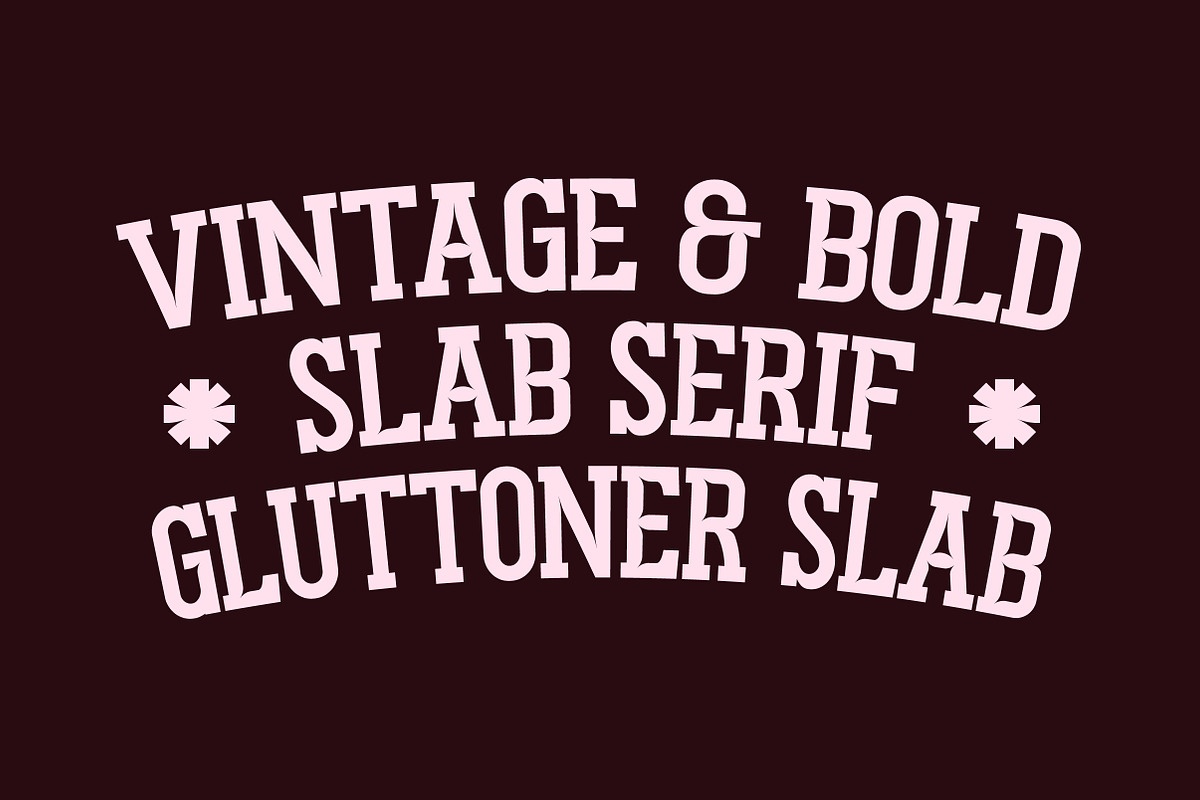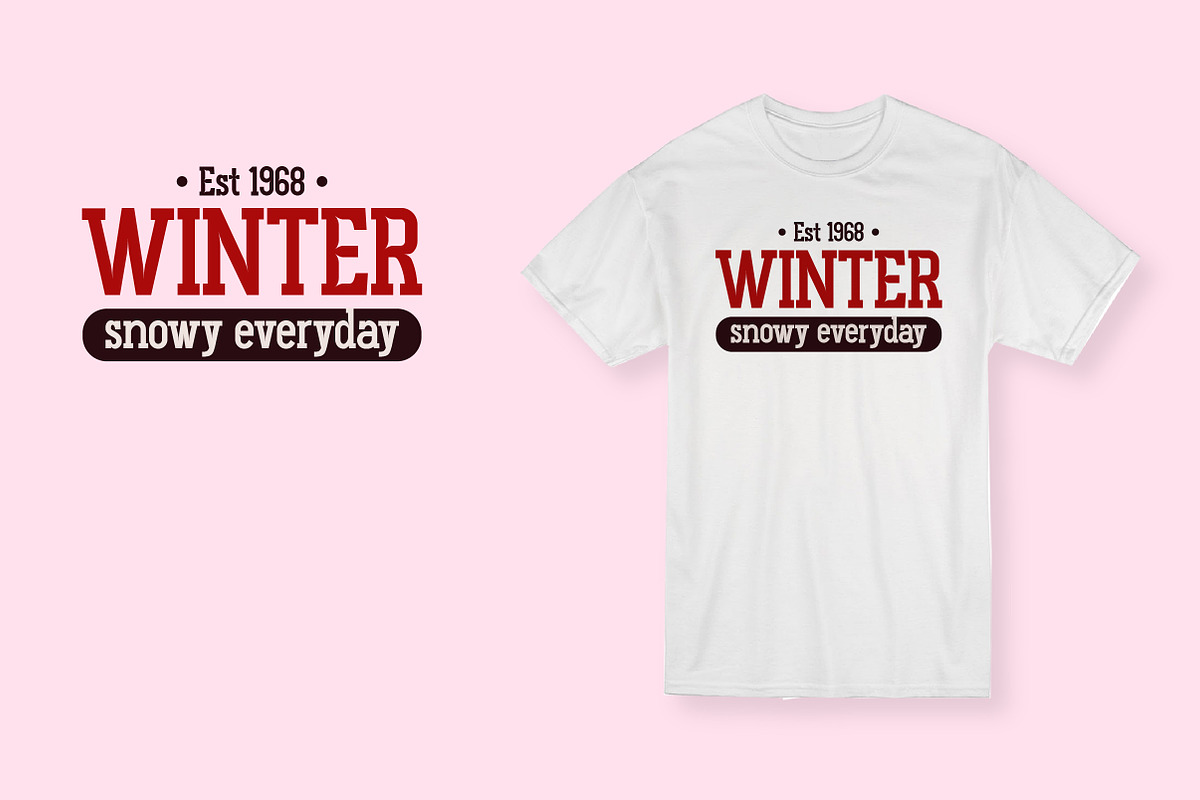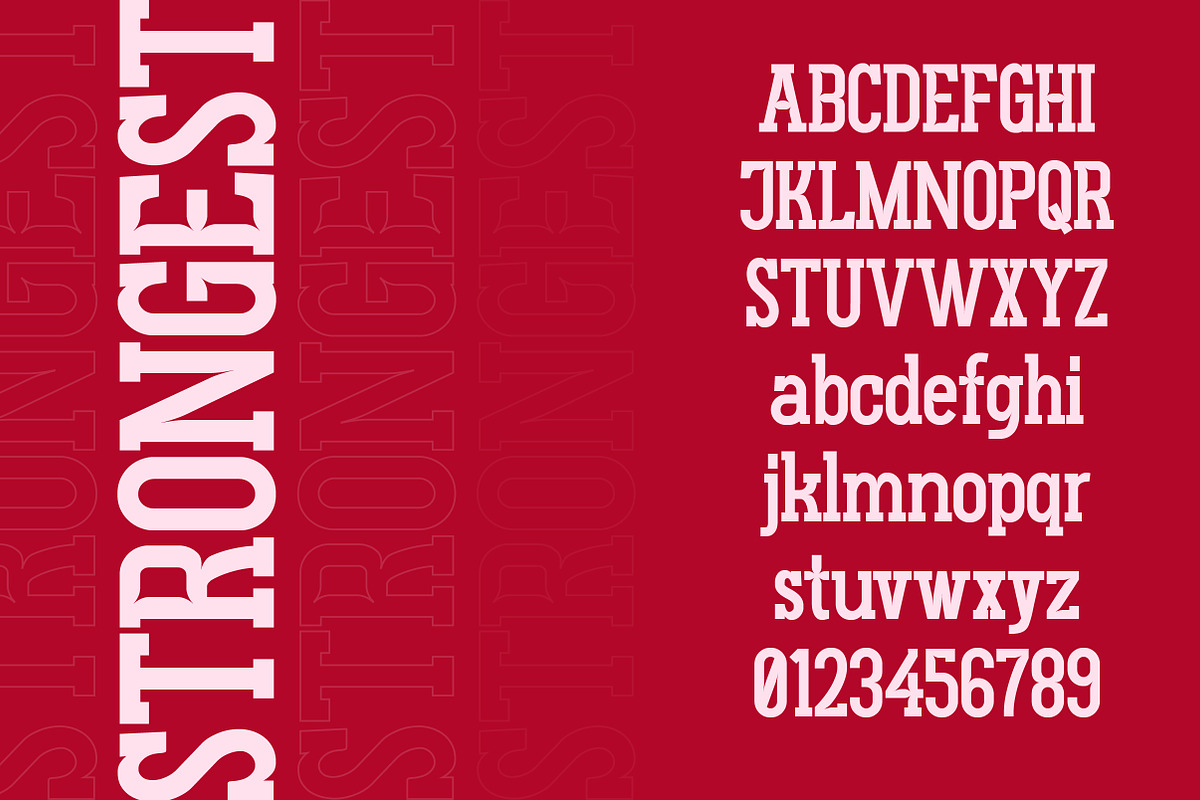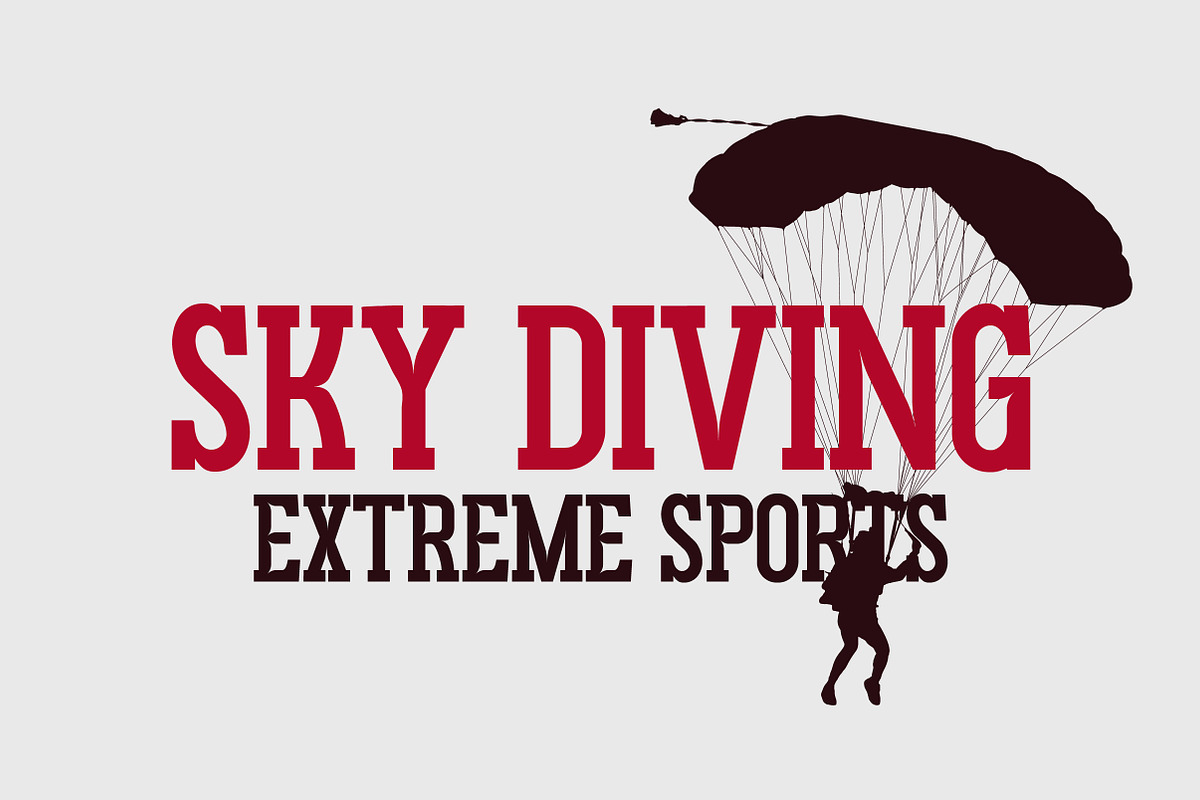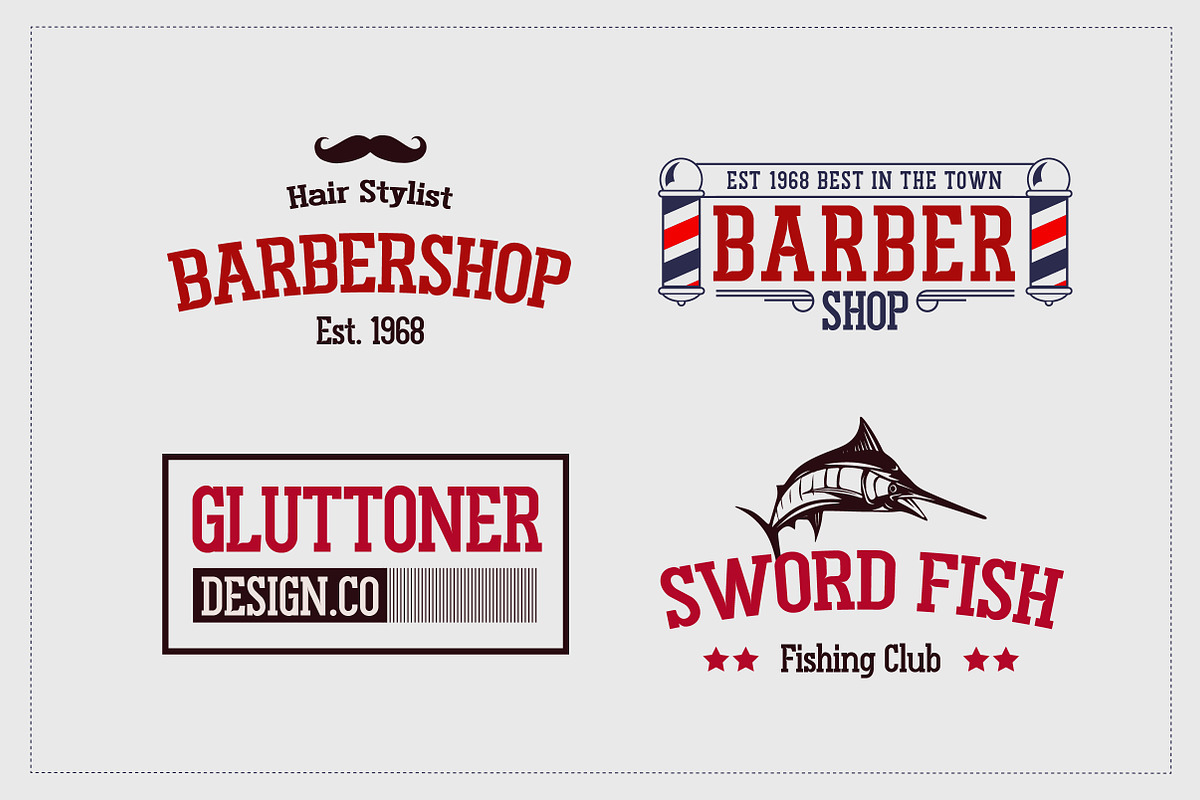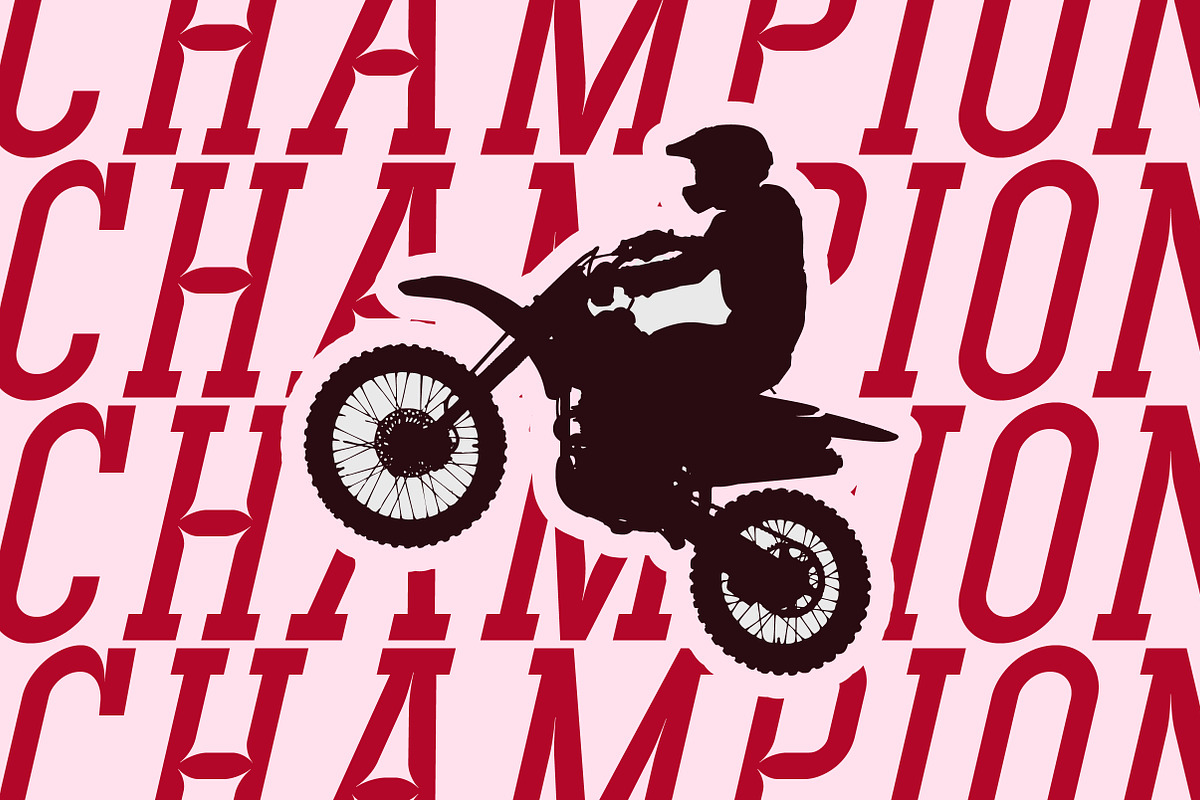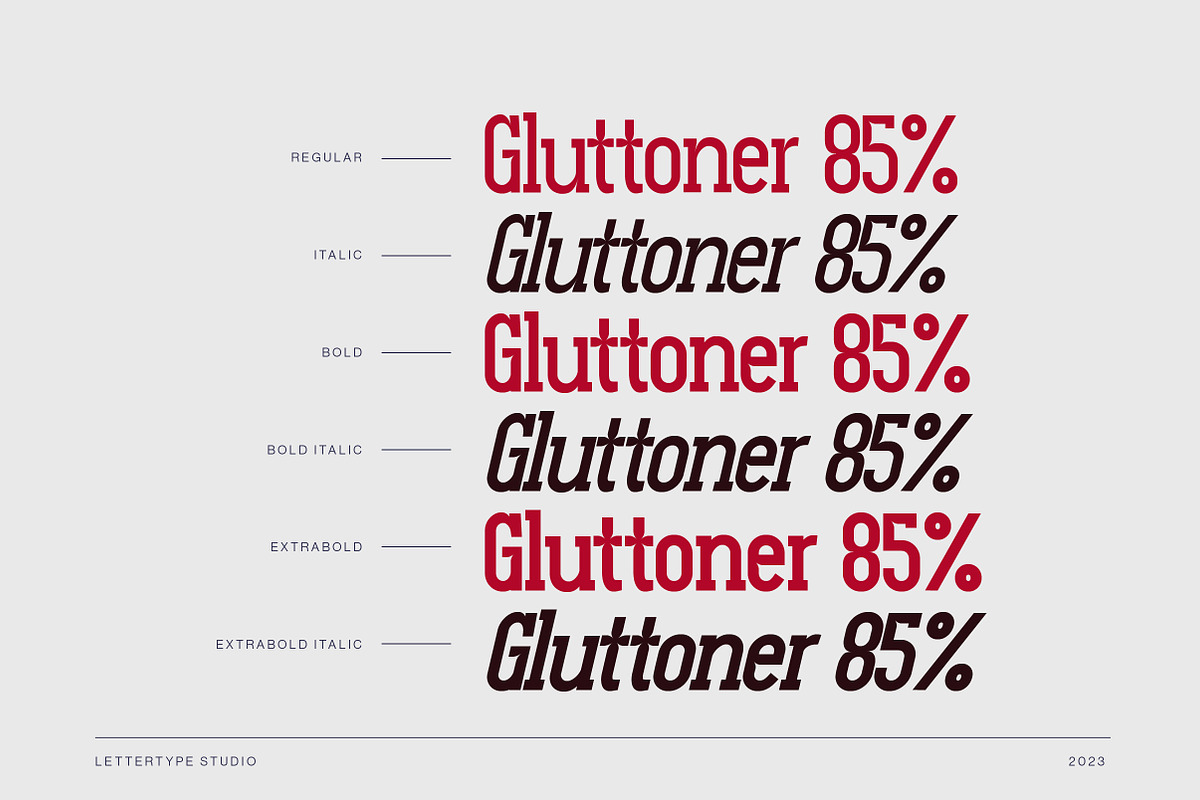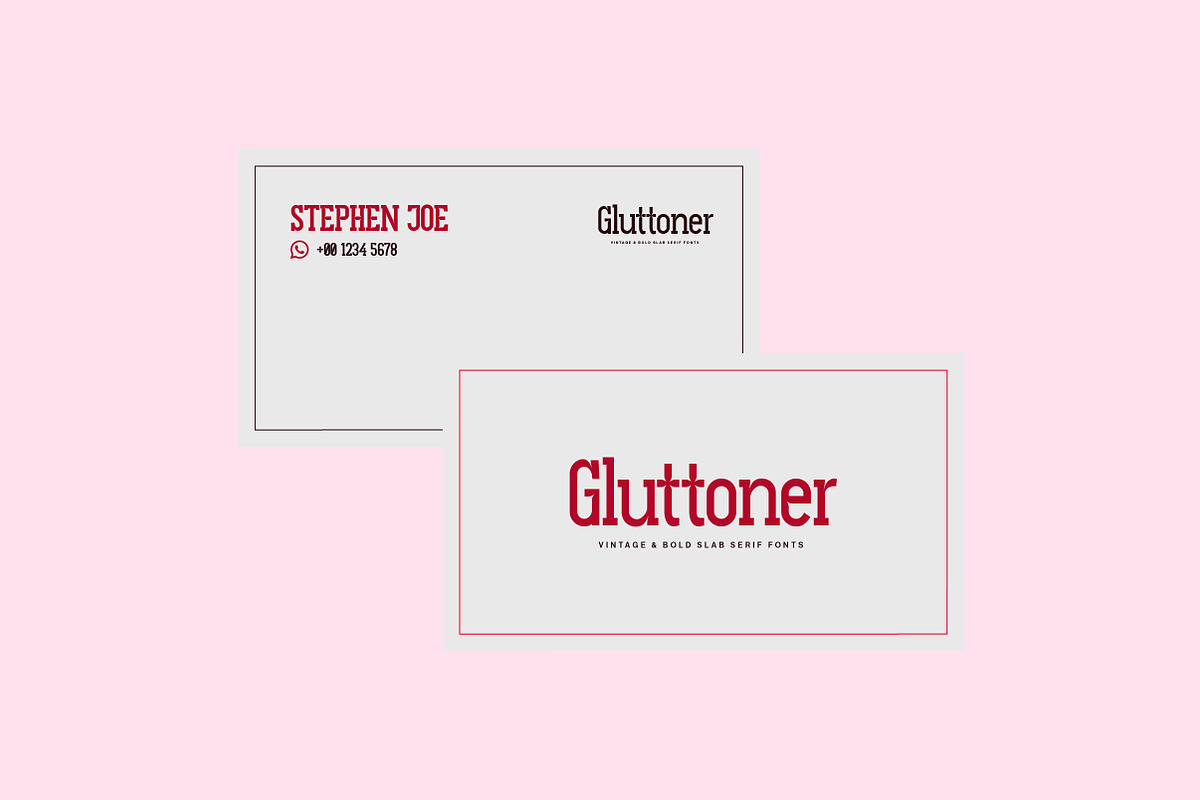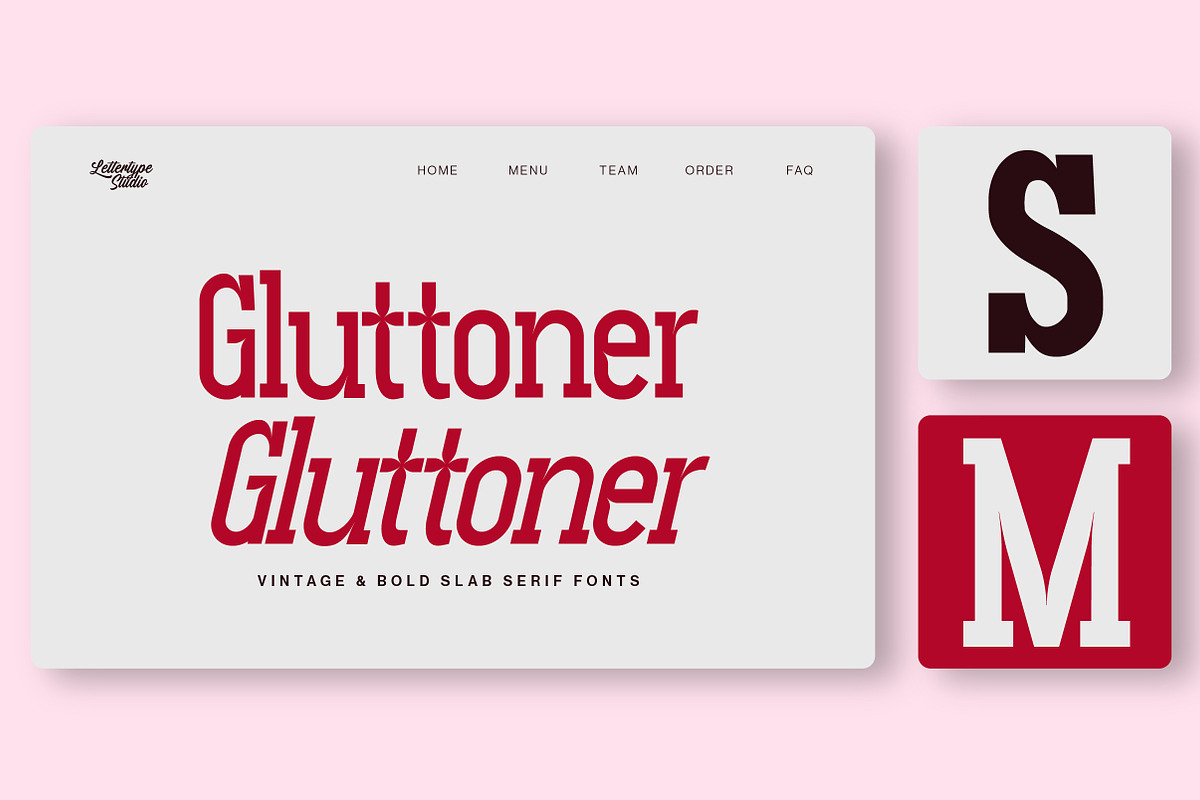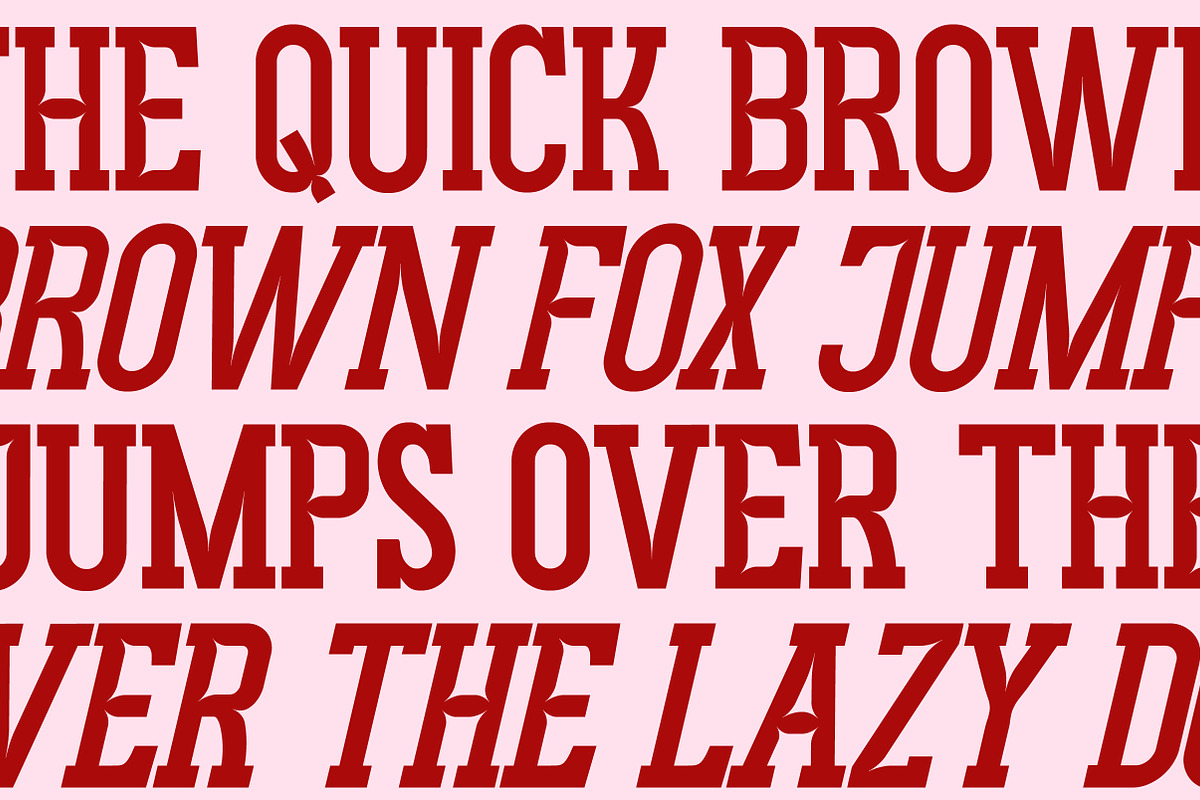
Gluttoner Inktrap | Vintage & Bold
Gluttoner Inktrap is a vintage & bold serif font inspired by urban culture with strong characters. Welcome to the new bold world inktrap serif characters, that fonts will help for any of your projects.
This font will be perfect for your logo design, branding, clothing, sports graphics, posters, editorial titles, headlines, etc.
Lowercase, Uppercase, and Ligatures
Accented Characters
Font Family (Regular, Italic, Bold, Bold Italic, ExtraBold, and ExtraBold Italic)
Multiple Languages Supported